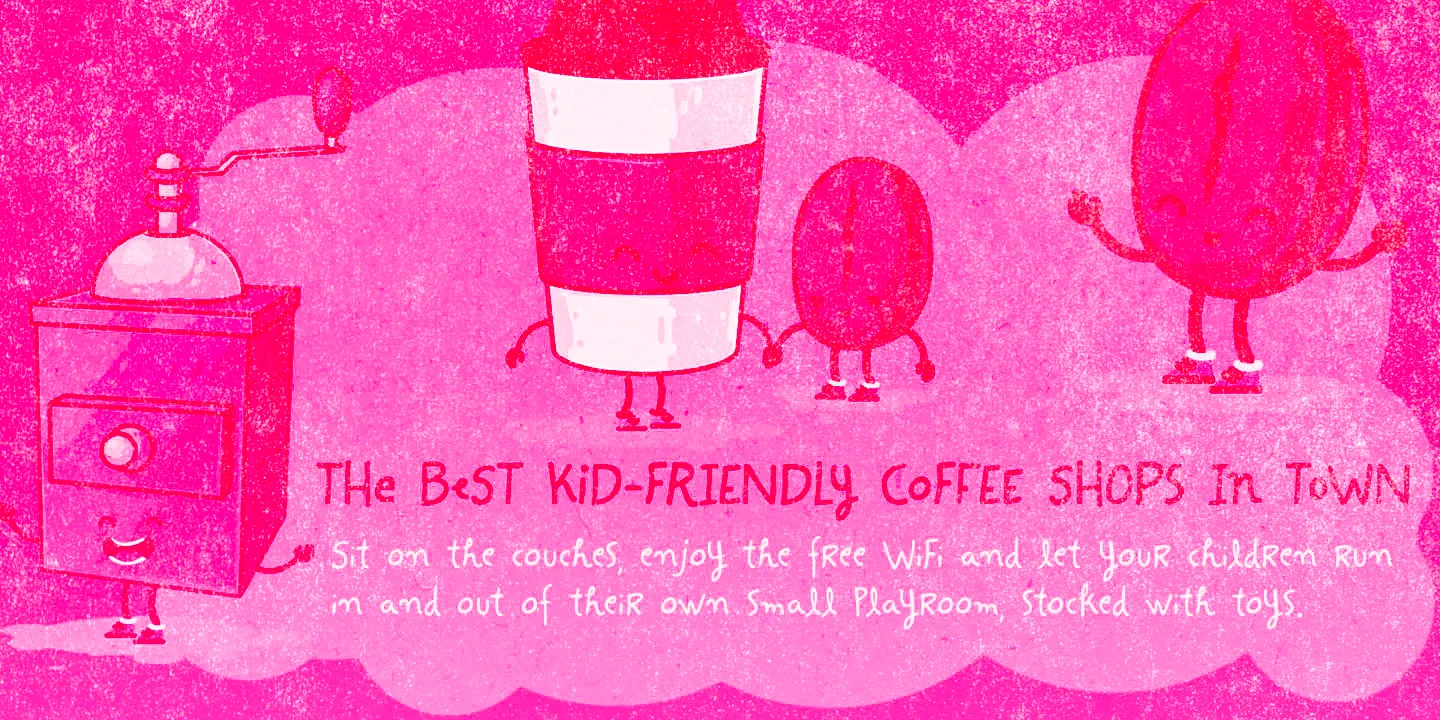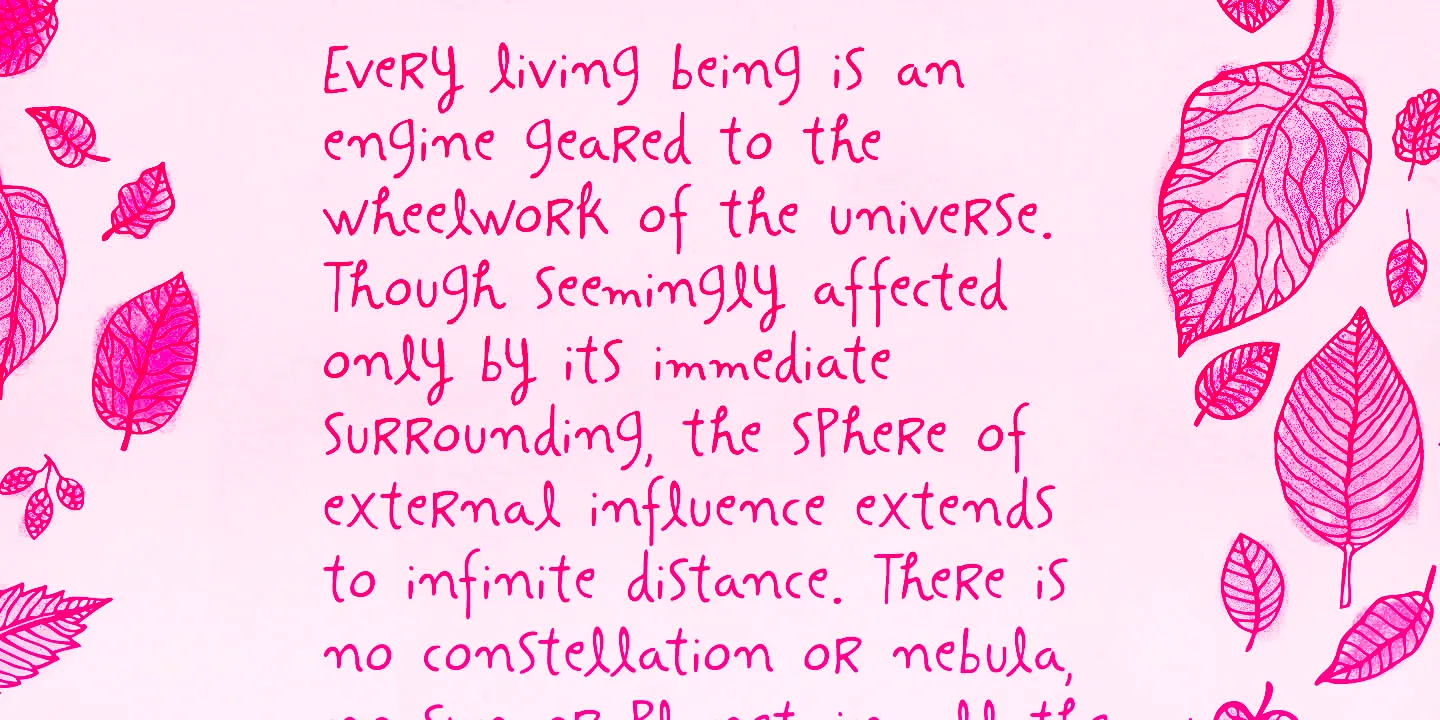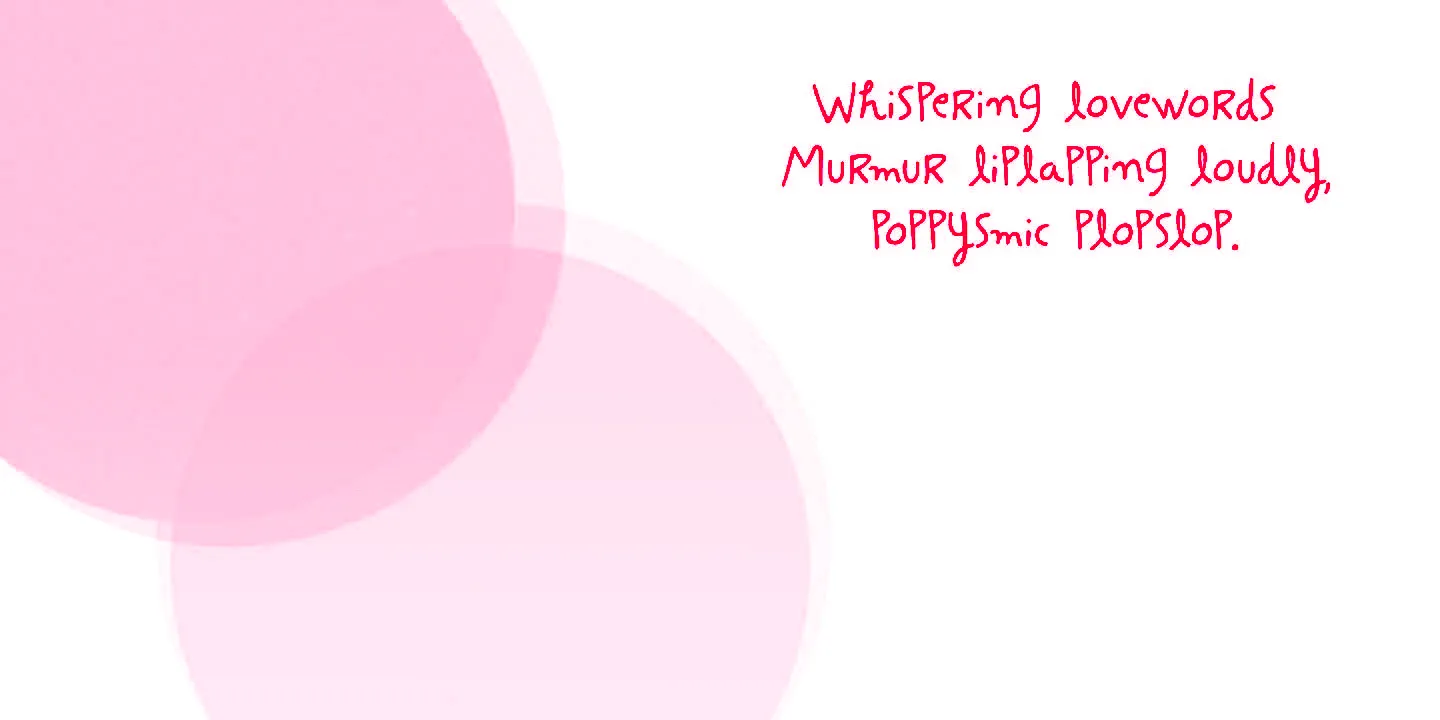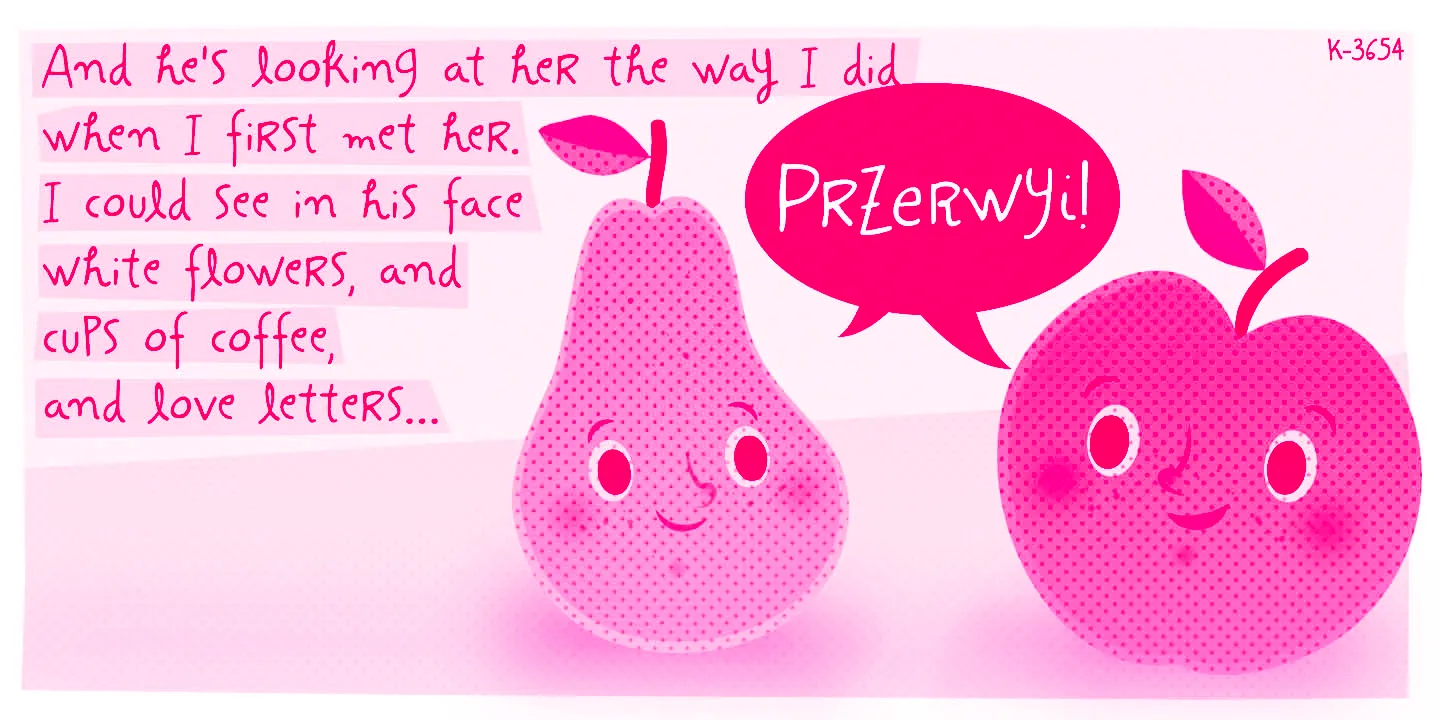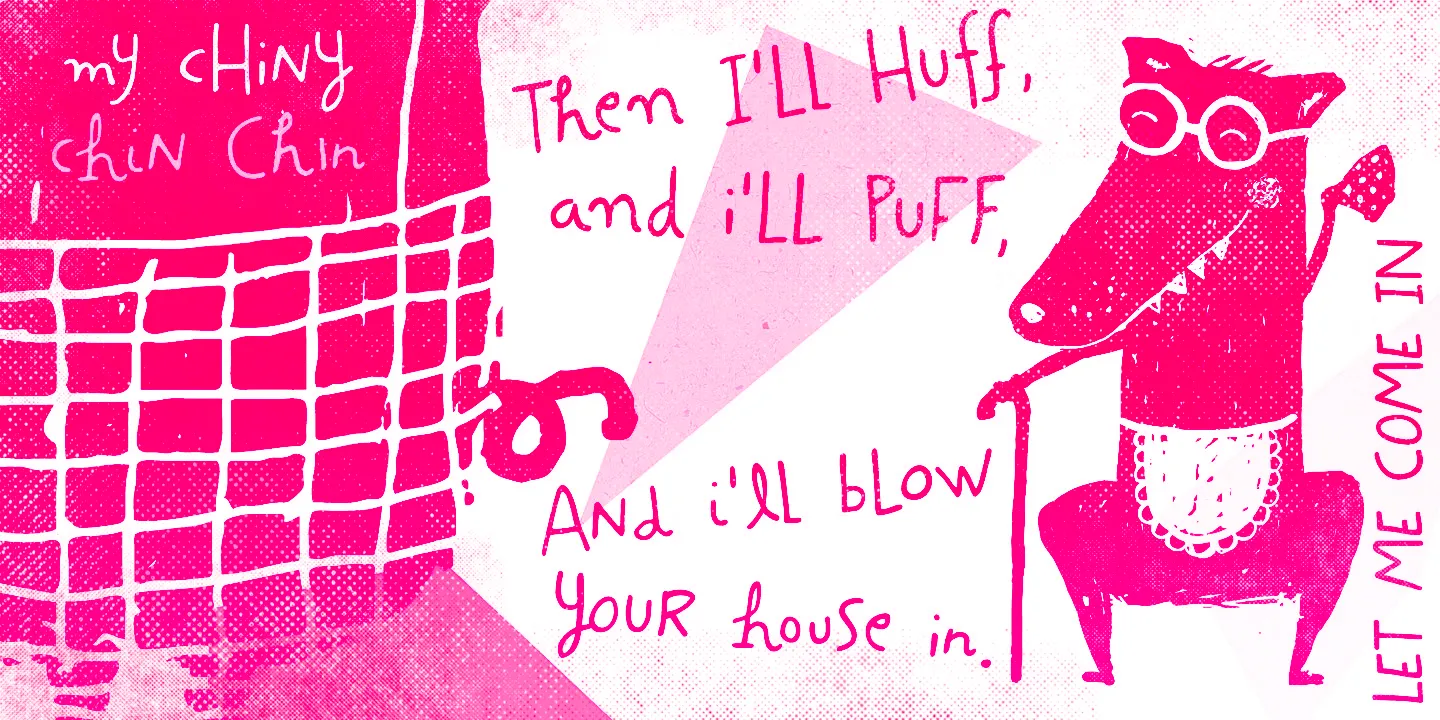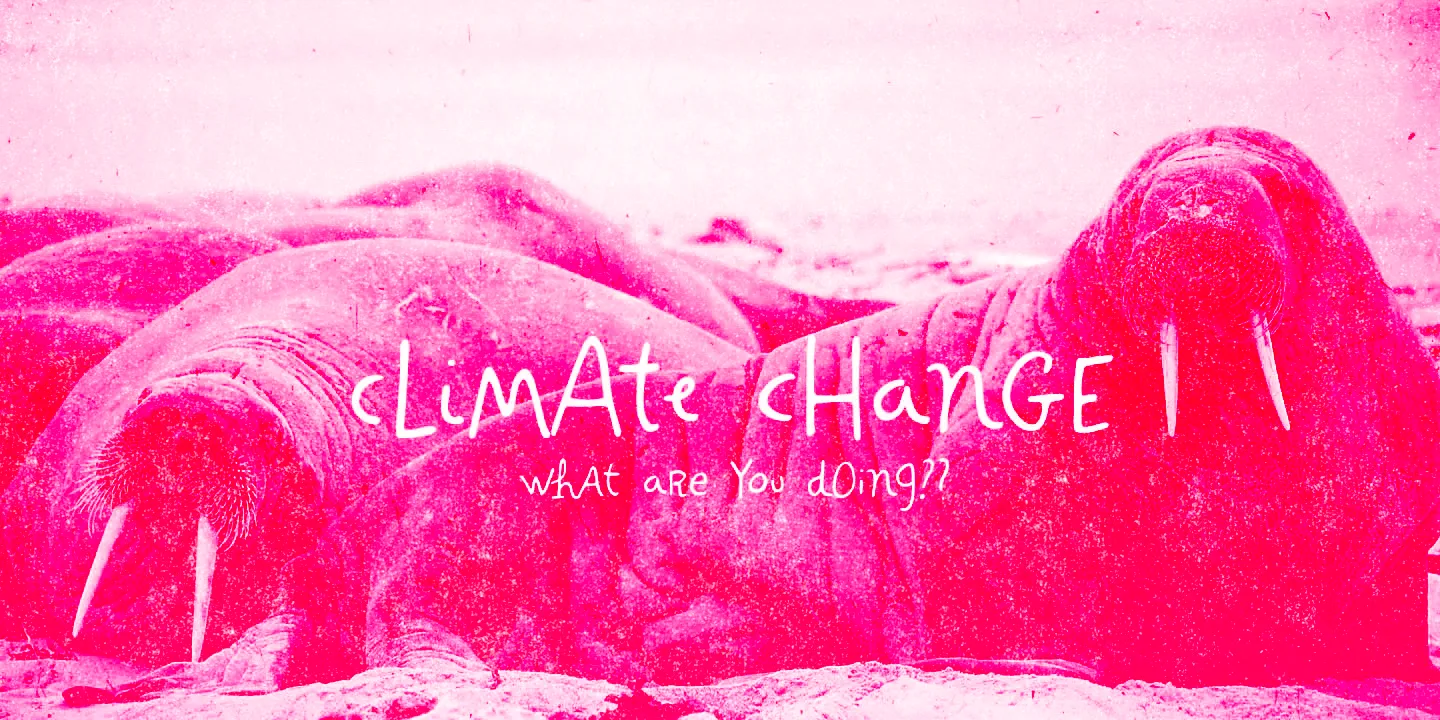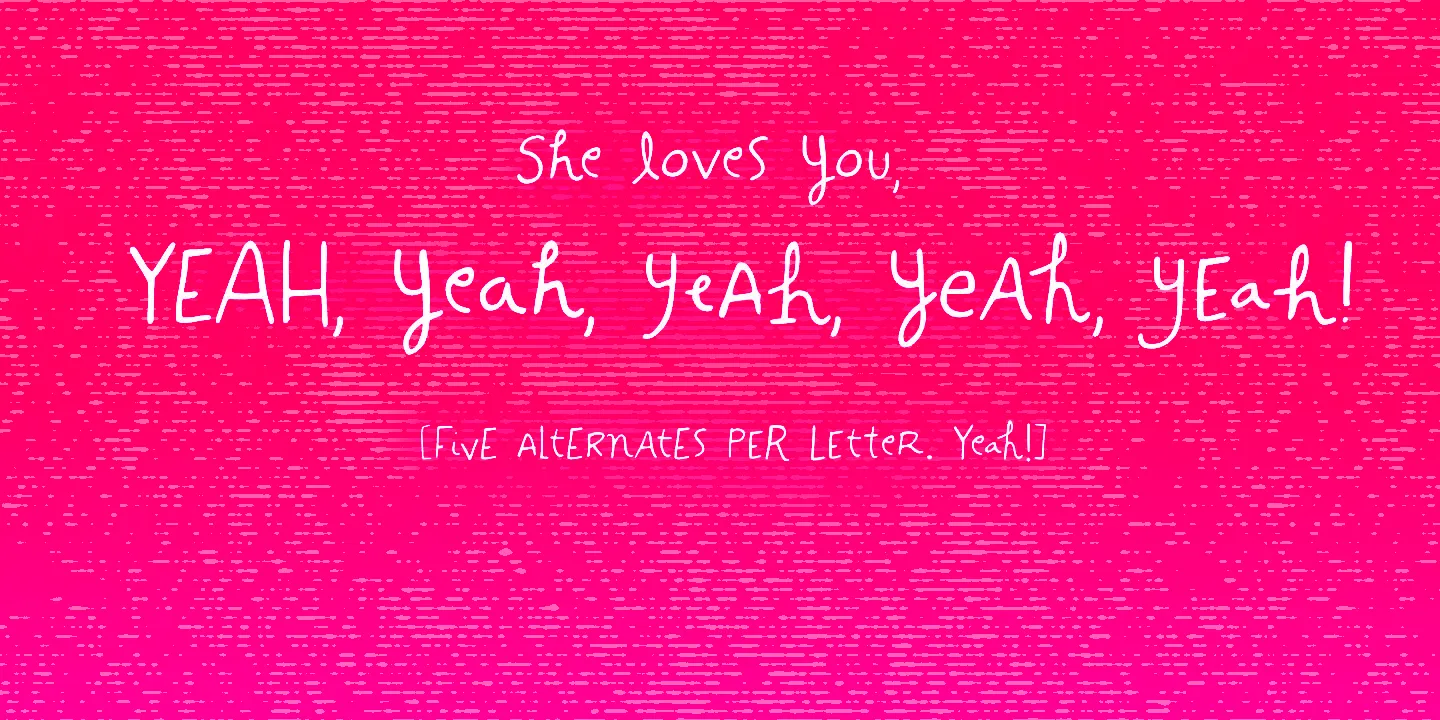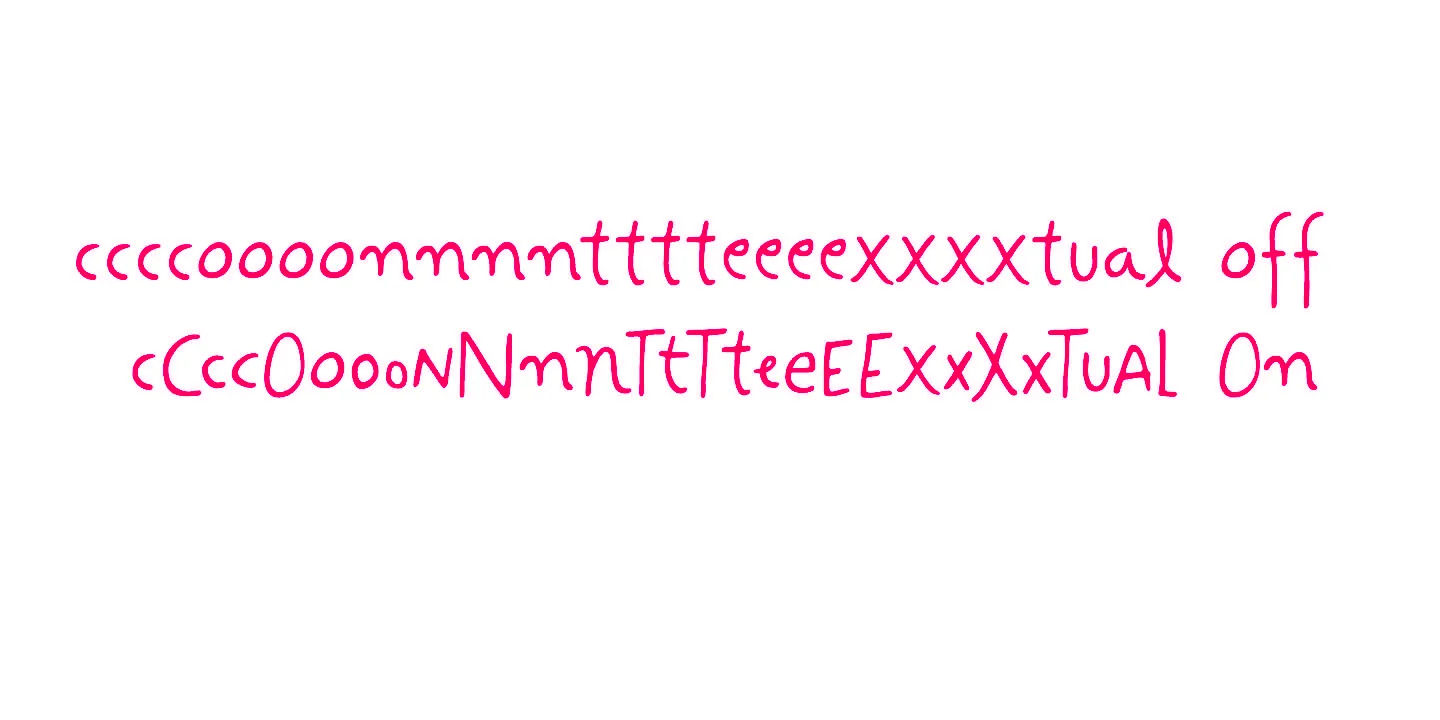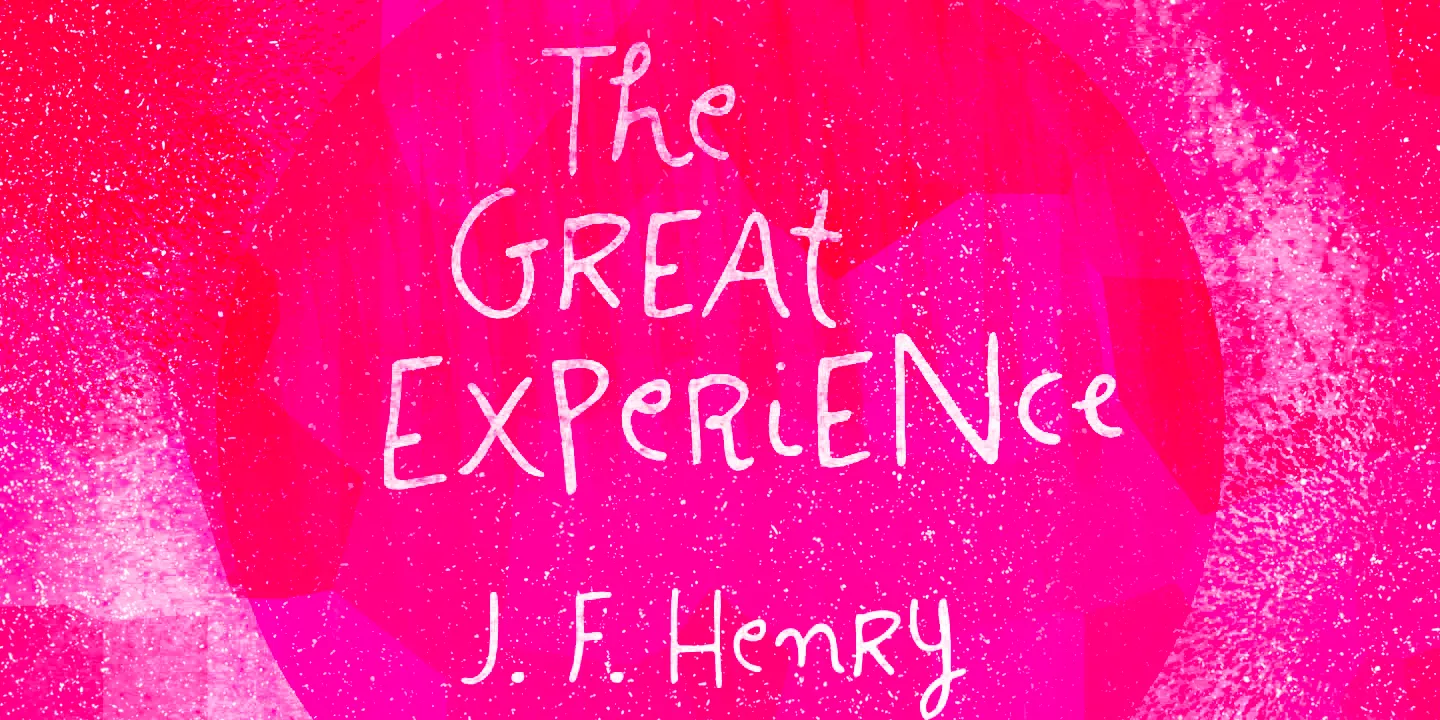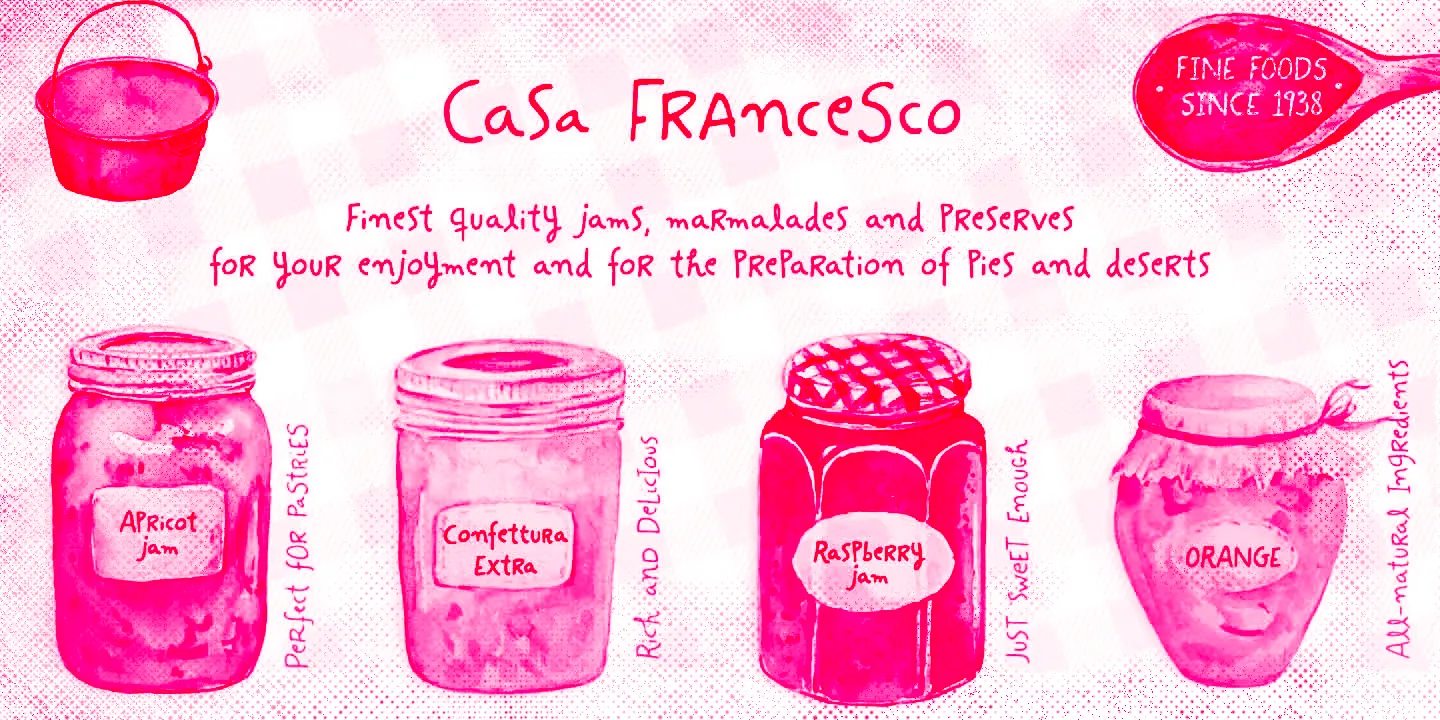
Hand It Font Family
• Hand It Regular
• Hand It Over
Hand It
Hand It is a carefully messy, sweetly odd, friendly family that conveys a cool — but warm — organic feel. With mixed letterforms and somewhat unexpected choices here and there, each font has a handful of alternates for a more natural look. There are five alternates for letters, three for numbers, plus alternates for punctuation marks. Discerning designers will know that Hand It is just strange enough to fit design briefs requiring an imperfectly perfect hand-lettered look.